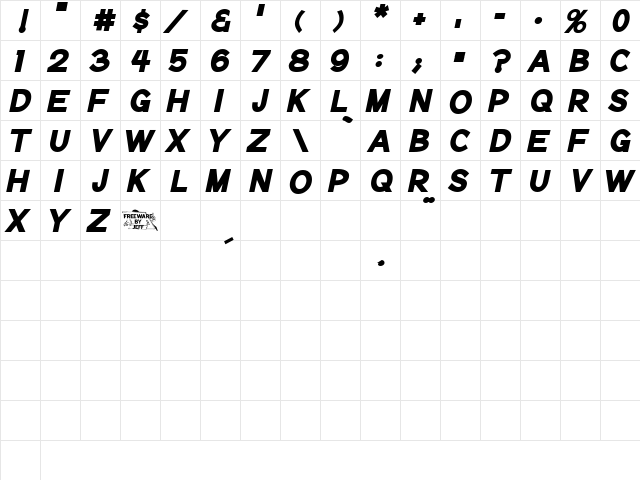
Notation Heavy Italic JL Regular
Design Context for Notation Heavy Italic JL Typeface
Notation Heavy Italic JL is a composed and adaptable typeface that performs quietly and consistently across a wide range of design contexts. The dynamic lean of this cut emphasises speed and emphasis in any layout.
Pro Tip: Use Notation Heavy Italic JL for emphasis, pull quotes, and subheadings where its slanted energy can add rhythm to the layout.